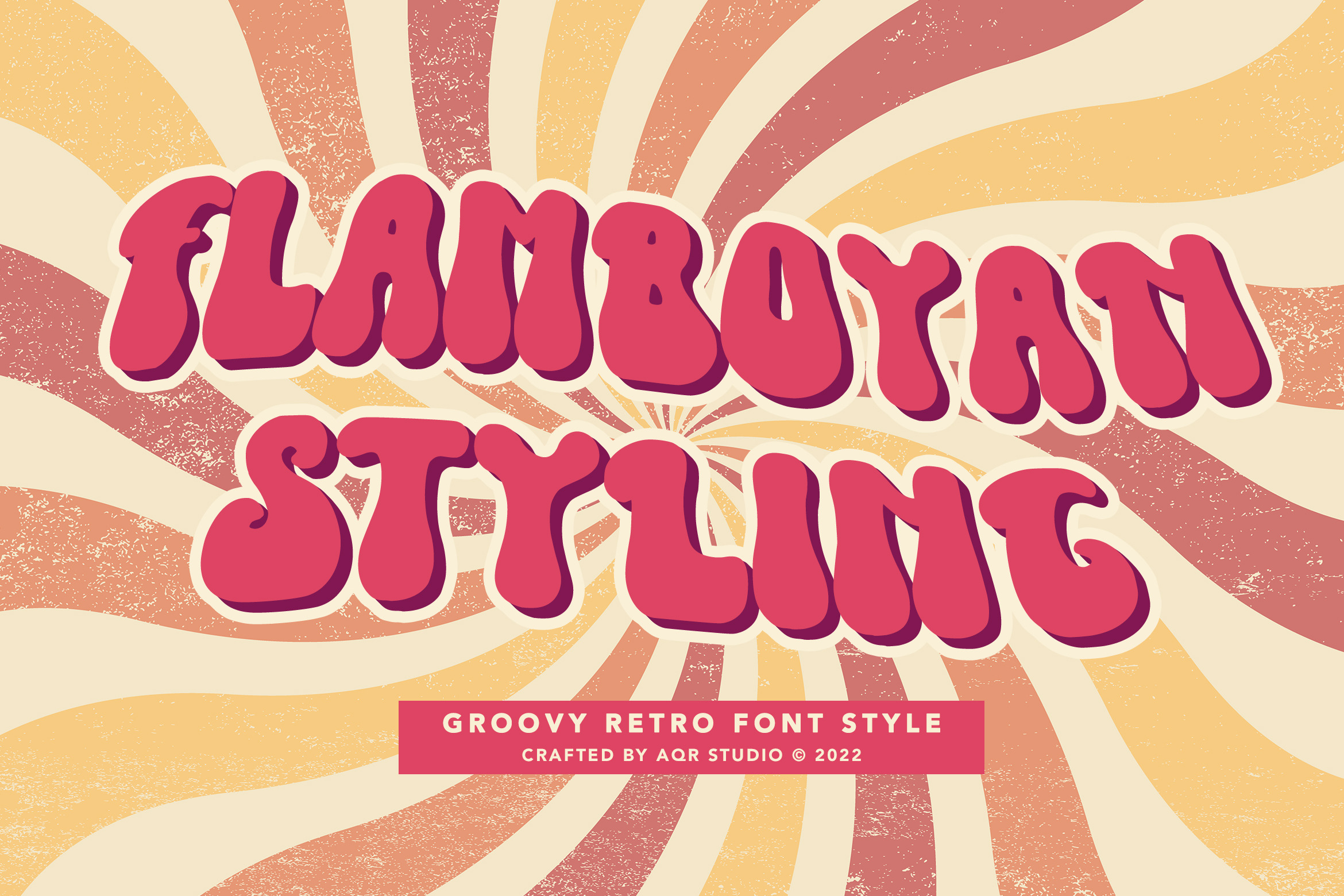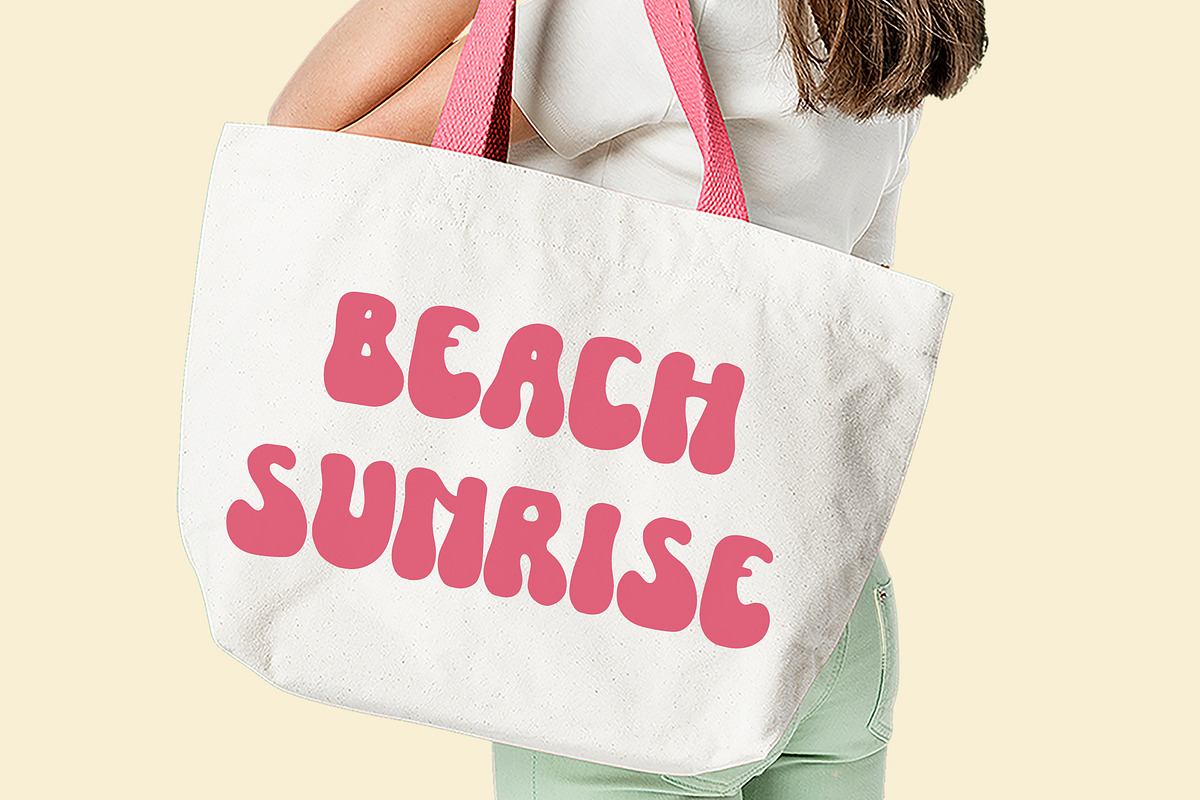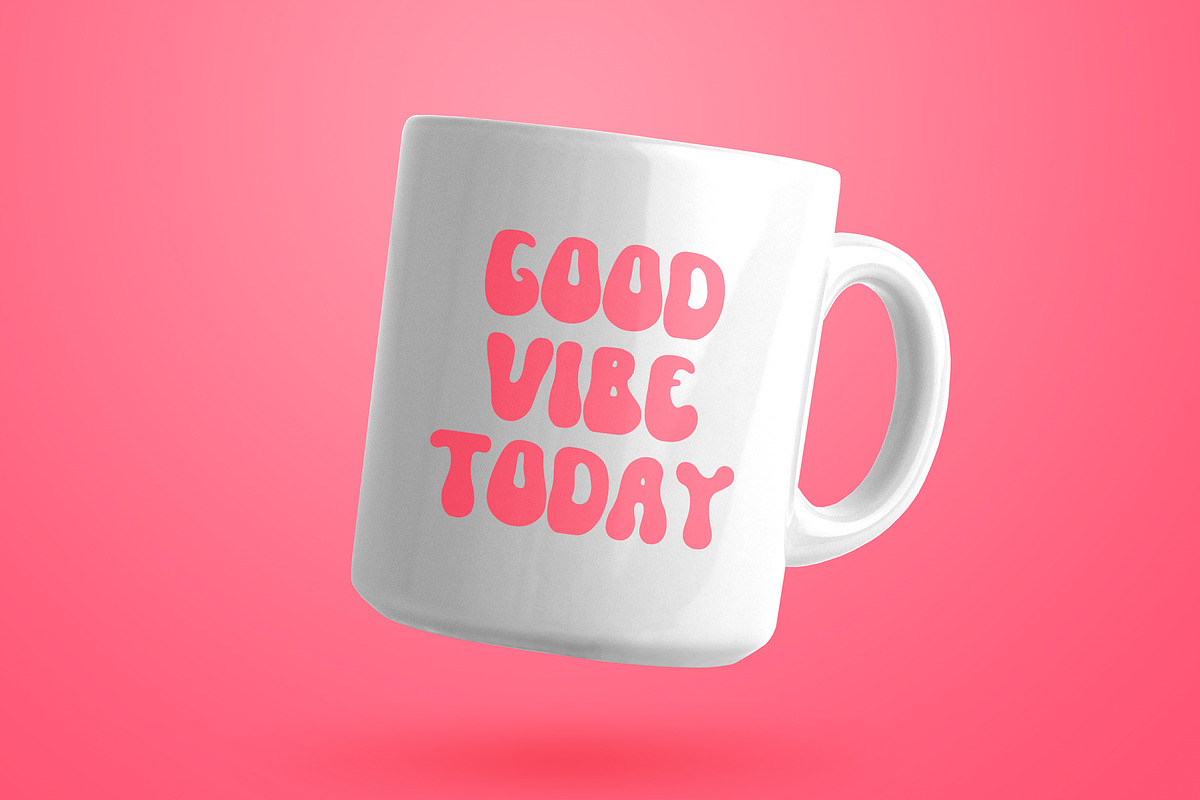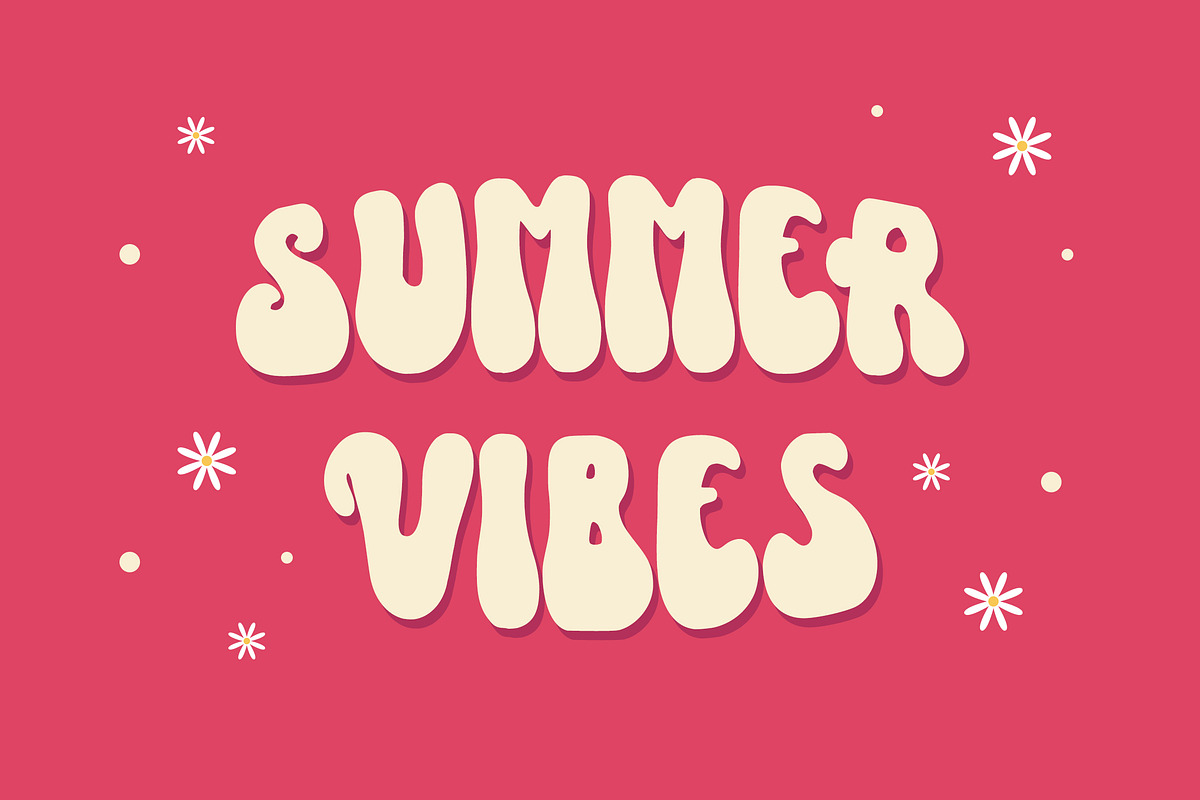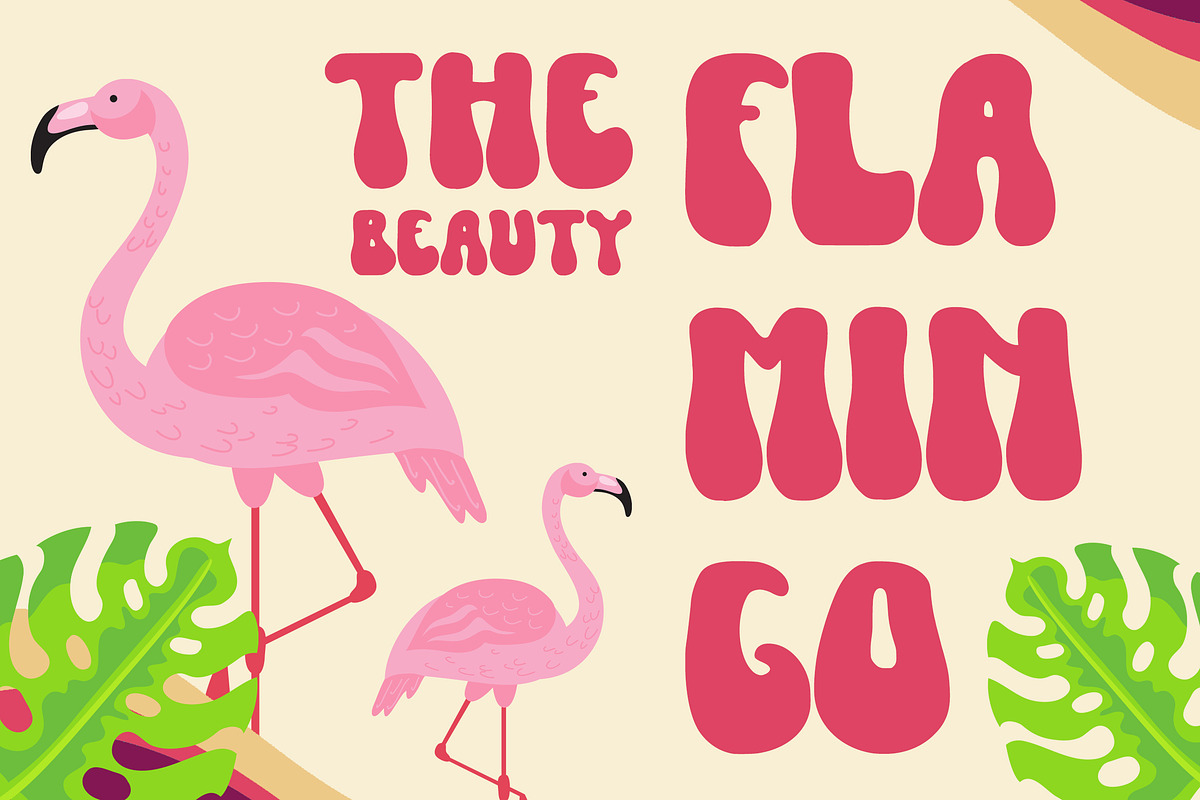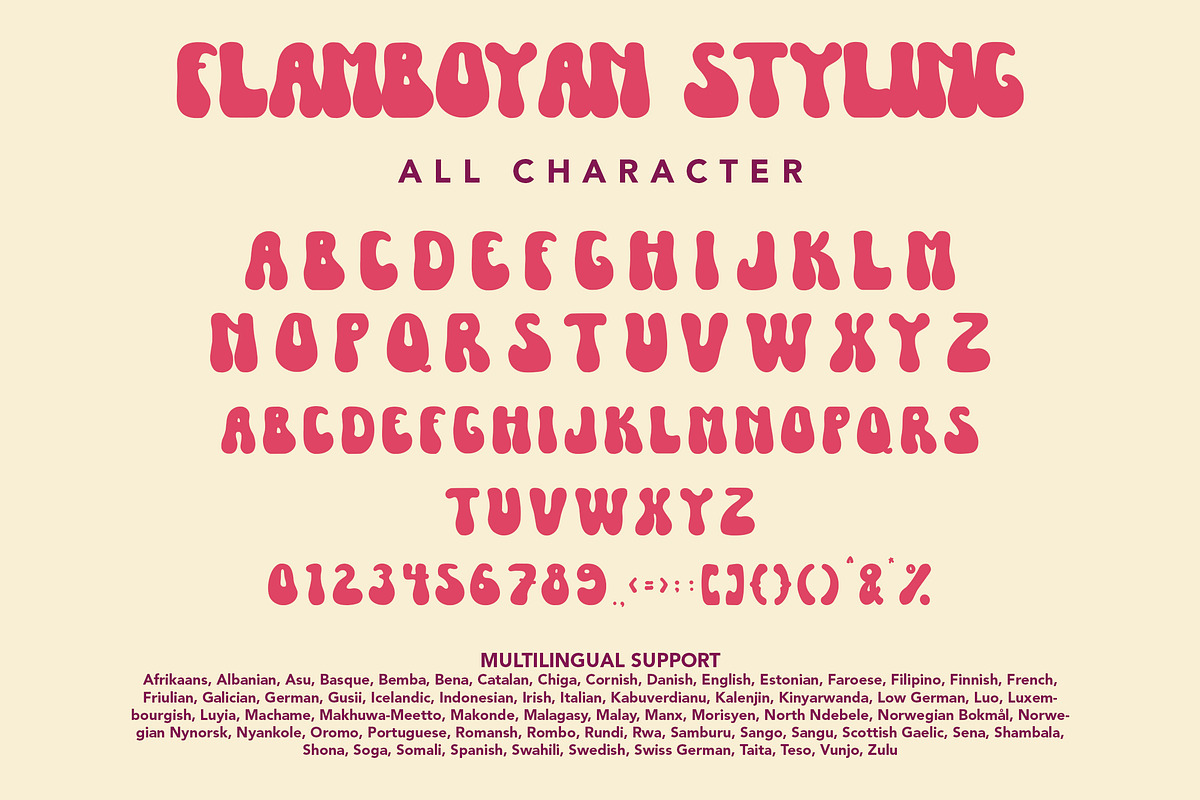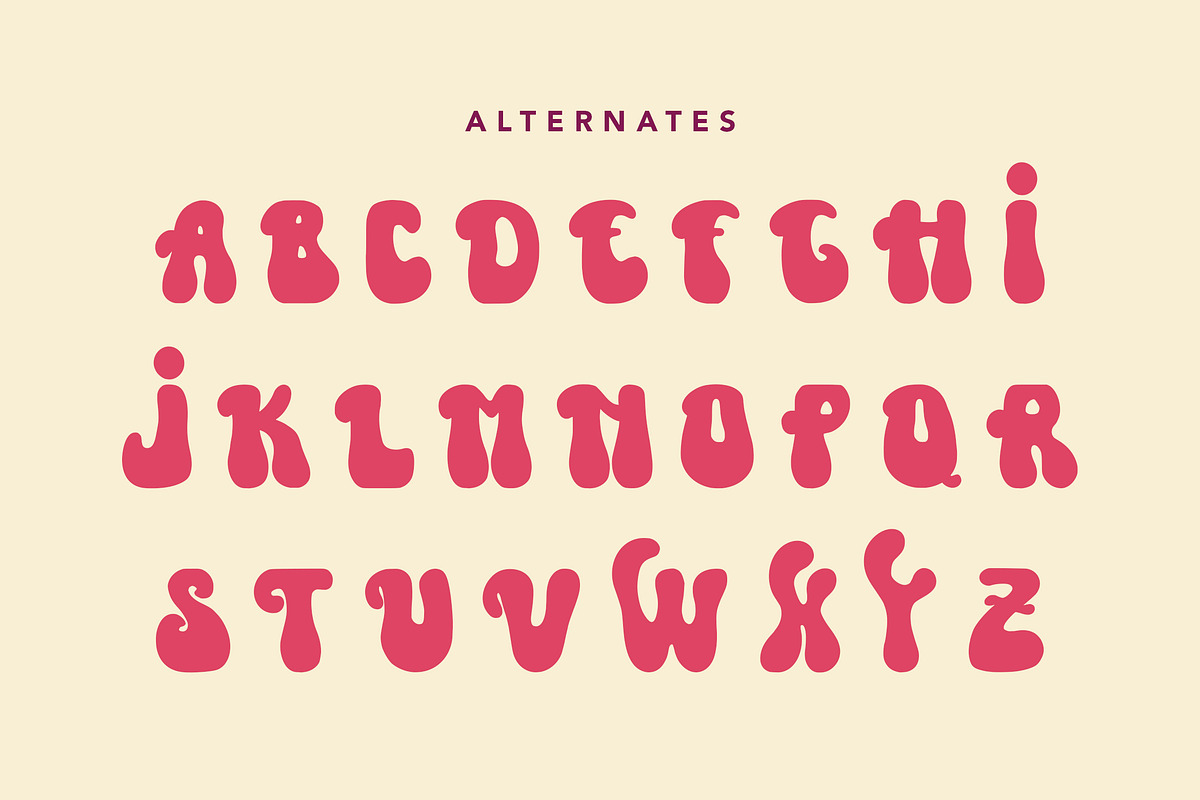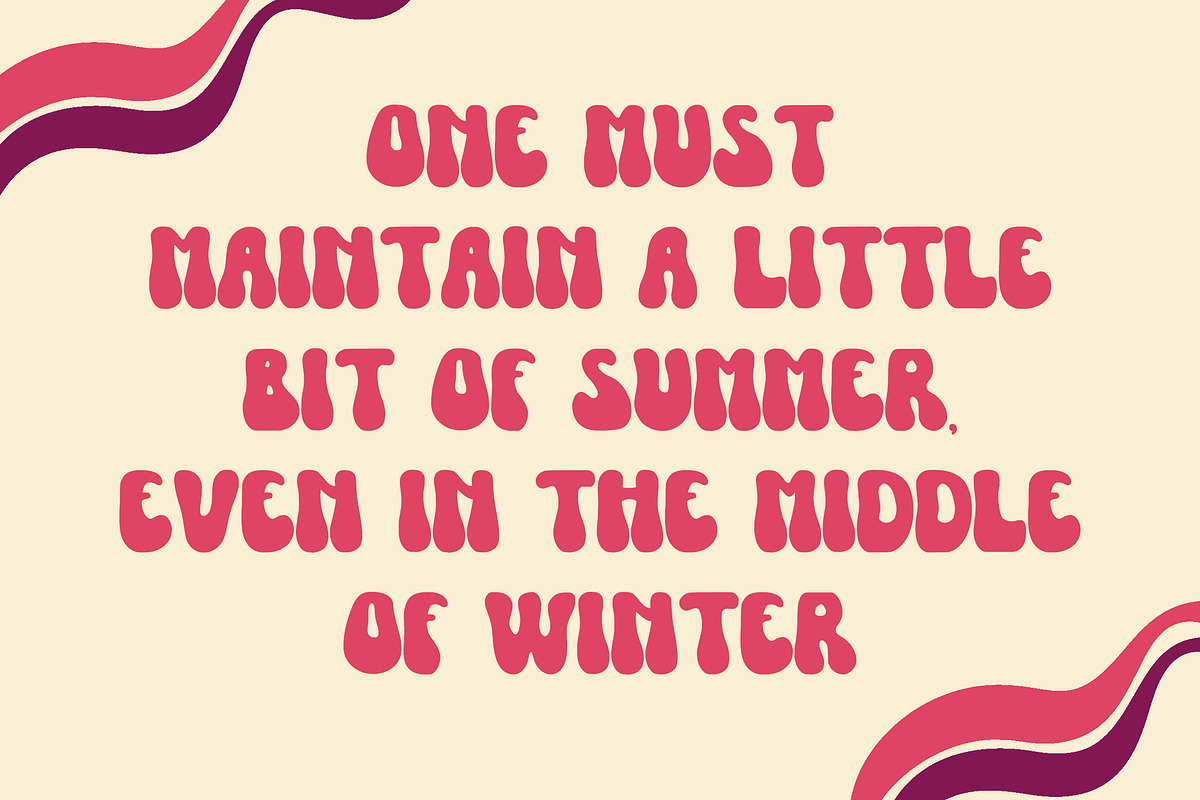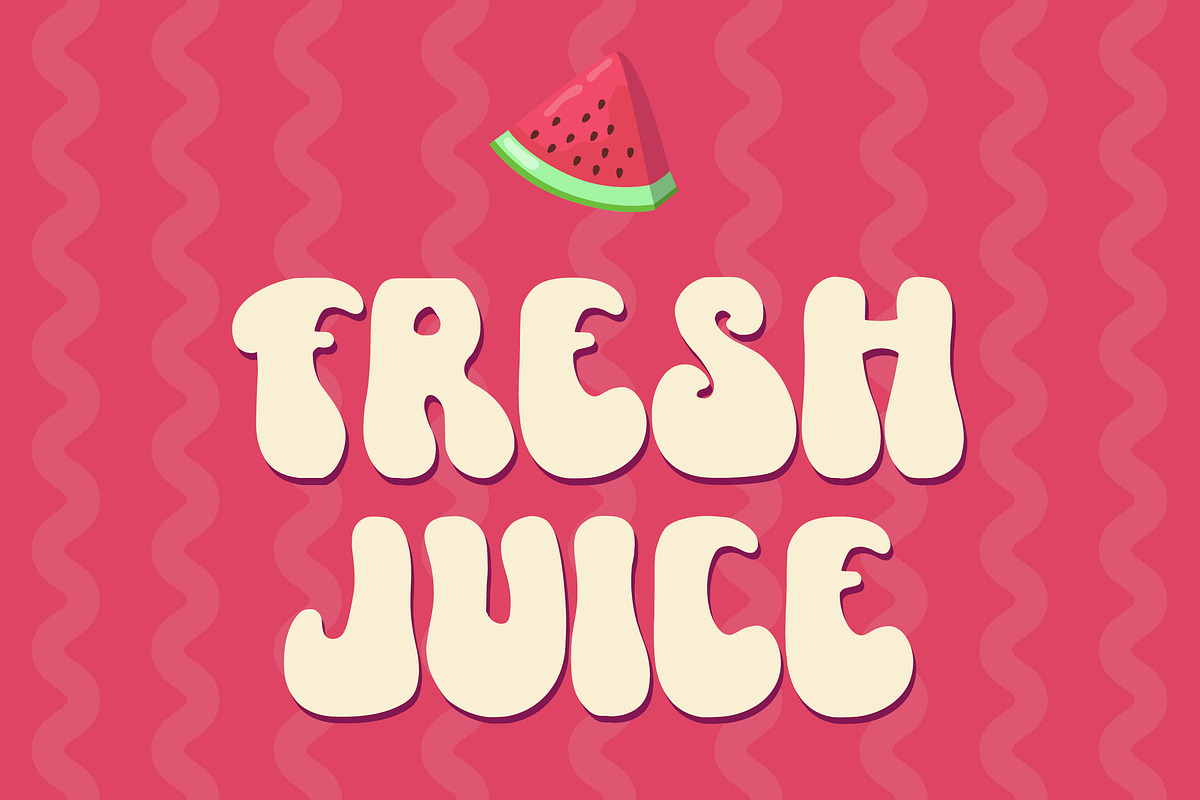
FlamboyanStyling - Groovy Retro Font
FlamboyanStyling - Groovy Retro Font contains a lowercase, uppercase, symbol, and also supports multi-language. There’s a lot of ligature in this font. FlamboyanStyling - Groovy Retro Font also comes with ligatures, stylistic alternates and many more. this font suitable for fashion, branding, catalog and other design that you want.